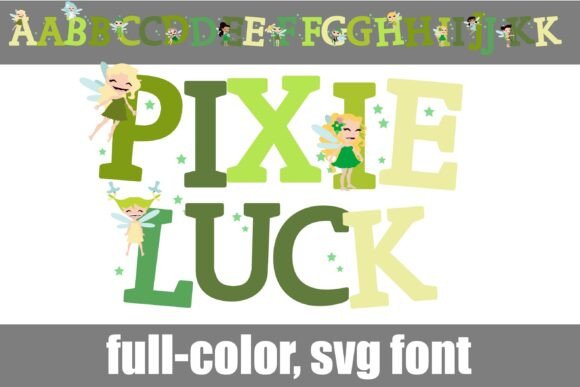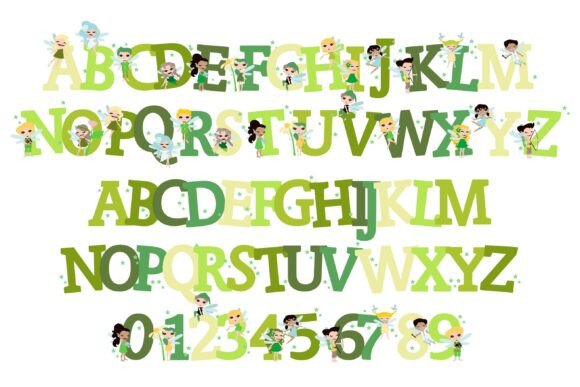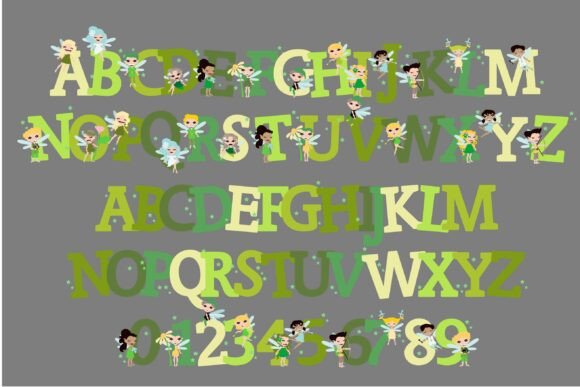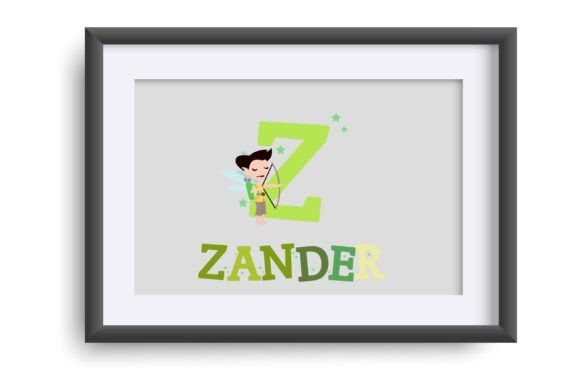
Pixie Luck Font
About the Pixie Luck Font
Elevate your designs with Pixie Luck Font, a font that combines sophistication with readability. This full-color font features a whimsical serif in green with adorable pixies on the uppercase. There is an alt version you can access through your system’s character map that contains additional colors of all the letters. This font works best for titles, displays, posters and more. Please note color fonts will show as black in non compatible programs. This font type is compatible with Silhouette Studio. Full-color SVG fonts are the perfect way to add a touch of personality to your designs. With a full range of colors and styles to choose from, you can create anything from simple text logos to complex illustrations.